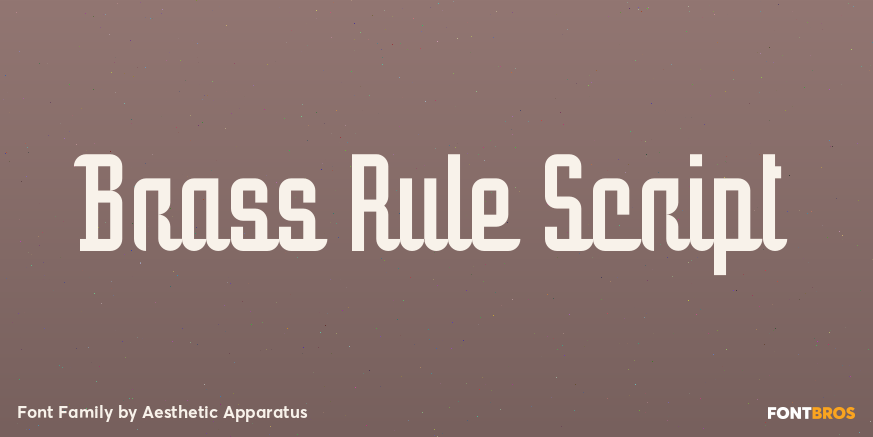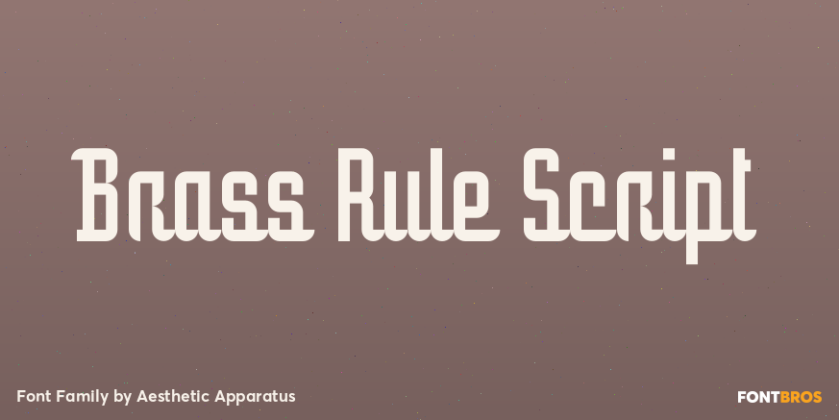
Brass Rule Script
About Brass Rule Script
Brass Rule Script is a geometric upright script constructed in the vein of the experimental ?brass rule letters? from the 1952 German typography book Hoffmann\’s Schriftatlas, combined with mid-century commercial chrome emblems. This OpenType font is constructed…